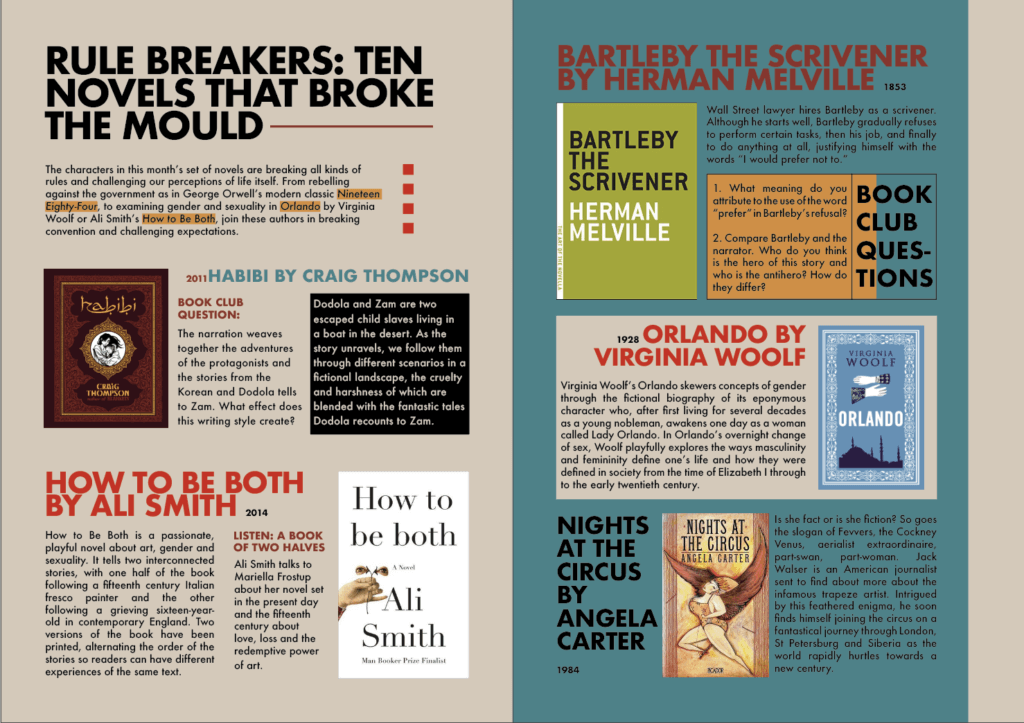
Exploring Indesign grids and guides
Design Ideas and Design Process
For my magazine spread, I wanted to create a design that is linear and structural yet still fun and playful to the eye. I loved the idea of using primary colours and hard-edged shapes to create a retro style for the magazine.
I started off by creating the title. I chose to use the font futura because I wanted that blocky sans serif appearance for the magazine. I wanted to have a swiss design approach to my work. I used a 12-column gridline to help establish that linear layout. I organised each A4 page by the rule of thirds horizontally so I could be able to insert all 10 novels whilst including a title. Having this simple structure laid out for me, I was able to have creative freedom with the title and placement of text within each novel/sectioned area. I played a lot around with the use of complementary colours, font size, and placement of the title with how it complimented the space and image of the novel itself. For slides 2-3 specifically, I formed the rule of thirds grid and duplicated it to save time. I then rearranged the titles and sections around so then it would not appear too repetitive to the eye for viewers, yet it was still structurally similar enough to follow along with. Using the rectangular tool, creating many rectangles and box shapes helped me section off areas of text in order to make it easier for viewers to recognise which text pairs with which novel. An example of this would be my last novel in place, “Nineteen-eighty-four by George Orwell. It is clear that that text is sectioned off with that novel due to how I formatted the rectangle.
I also thought creating a separate character style of the year the book was published was a logical move, by minimizing the year of when the novels were released, I not only saved and utilised space in the magazine, but I also placed more focus on the novel and the summary text aside the novel.
Although it was not essential, I thought inputting the book club questions, or the listen recommendations in the magazine would be a good idea to create more of a magazine feel to the design, having smaller subsections enabled me to use left-justified alignments.
My grid/guidlines
Prior to this, I did not know how to use or even turn on the grid lines. I used the Adobe Use Grids Indesign website to help me find out how to adjust the grid lines. This was really useful to me, especially when trying to align all my text and images together. I used a 12-column grid with a 5 margin and I believe this truly allowed me to have more creative freedom when designing this magazine layout because the grids allowed me to spend less time aligning and lining up all the text and images together.
Using the inspo image I found off Pinterest, I thought it would be cool to highlight the titles of books in the caption of the title. Because I did not know how to highlight a certain part of the text and I did not want to create a rectangle for each individual text to highlight, I used a tutorial from creative pro titled “Making a text highlighter”. It demonstrated to me that although there is not an actual tool on indesign that highlights text for you, using paragraph shading and adjusting the offsets and size and shapes can replicate the allusion of highlighting text. Furthermore, because you can adjust the size and shape of it, you can adjust how wide or narrow the highlight can be which I found really useful when creating that box image around certain textboxes I used in my layout.
Something I would love to work on next time is using the baseline shift. In my attempts of using it here, I really struggled given the fact that all my titles were different sizes and were arranged differently, however, if I ever do a project similar to this again, I will be sure to prioritise learning how to familiarise myself with using the baseline shift.
As stated previously, I did some research using Pinterest to search for design ideas and styles that I was fond of, I came across this image of a fun magazine layout that I was heavily influenced by. Not only did I use the colours in my magazine, I also was heavily influenced in some of the formatting techniques or styles established in this layout as well. I loved the blockage of the yellow and the bold titles designed in this. My magazine was very much influenced by this image itself.
Like I said before, I had to do some research on learning how to highlight text on InDesign as I was unfamiliar on how to do so myself, I found this website more helpful than others online because it gave a step-by-step tutorial whilst seeming very updated to how InDesign is structured now. As the majority of my text within the magazine is highlighted, my design would not look how it is now without this crucial skill I learned.
Learning Throughout the Module
Some skills I’ve learnt throughout the module would be certainly learning and understanding the basic uses of all three softwares: Photoshop, Indesign, and Illustrator. However, I also managed to learn more in-depth skills and techniques such as cutting out images using paths and lines, using grid lines and paragraph styles on InDesign, as well as familiarising myself with paths and vectors in illustrator. Although I am still very new to using these softwares, I am feeling more comfortable using it after each time or task I have achieved.